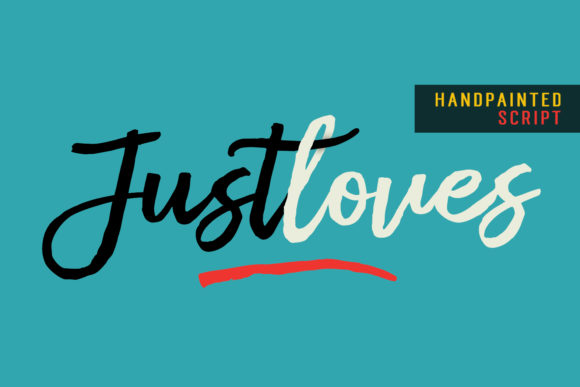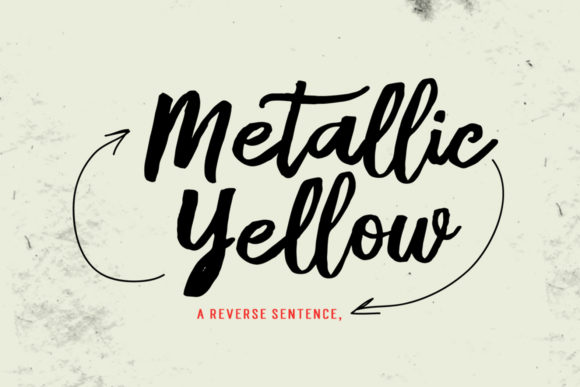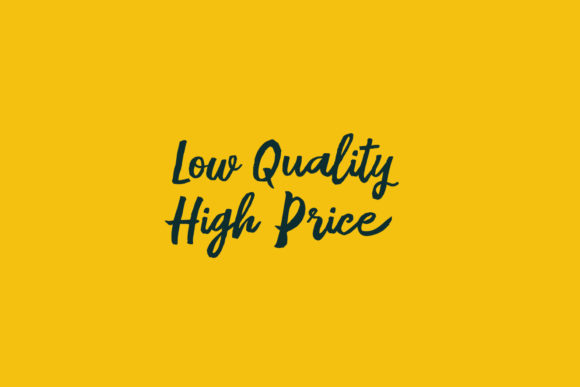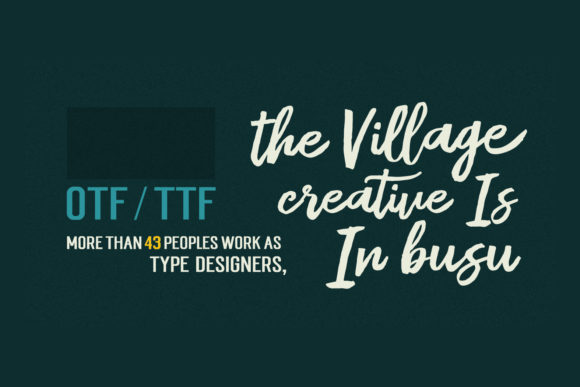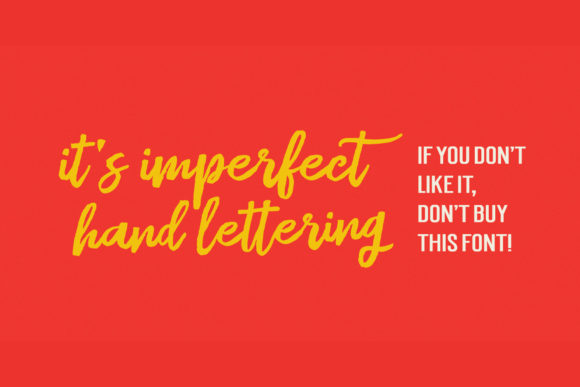
HomeScript FontsJustloves Font Script Fonts Justloves Font FacebookXPinterestWhatsApp Justloves Font Poster 2 Justloves Font Poster 3 Justloves Font Poster 4 Justloves Font Poster 5 About Justloves Font Justloves is a fun and authentic handwritten font that will inspire any new design ideas with its adorable charm. DOWNLOAD ON CREATIVE FABRICAThis font is sold and delivered by Creative Fabrica. Font Canyon may earn a commission if you buy through this link. People also explored Handyride Font Better Moods Vintage Font Orecla Font Belastine Font Funny Rainbow Font Abulonia Font Holiday Paradise Font Blofera Font Bluesticks Font 324 0 TagsJustloves Font Previous articleLonely High FontNext articleDarloune Font LEAVE A REPLY Cancel reply Comment: Please enter your comment! Name:* Please enter your name here Email:* You have entered an incorrect email address! Please enter your email address here Website: Save my name, email, and website in this browser for the next time I comment. Personal Use Free Heart Memory Personal Use Free Read more about this font Laneway Personal Use Free Read more about this font Anggraini Personal Use Free Read more about this font Rasiday Personal Use Free Read more about this font BLOG Modern Sans-Serif Fonts That Brands Love in 2025 In 2025, modern sans-serif fonts remain a top choice for brands looking to project clarity, professionalism, and... Fonts That Capture the Spirit of New York City Using Fonts in Digital Marketing: Tips to Strengthen Your Brand Identity Top 10 Handwritten Fonts That Elevate Your Designs